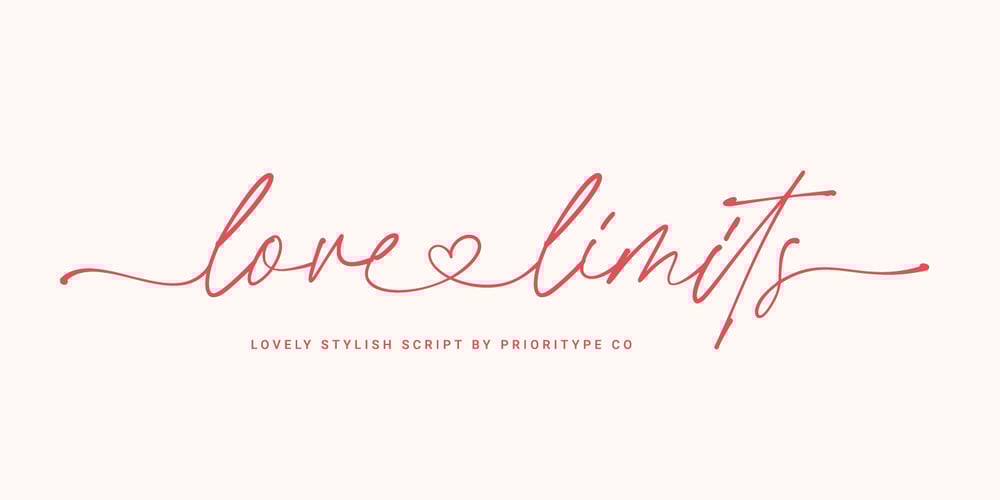
Love Limits Font Family was designed by Prio Nurokhim Aji and published by Prioritype. Love Limits contains 1 styles and family package options. Stylish script fonts are here again to accompany your design projects. Equipped with unique alternative characters and ligatures that make it more natural. Suitable for branding, logotype, wedding invitations and others. Features: Uppercase, Lowercase, Numeral, Punctuation, Multilingual, Ligatures & Alternates. Multilingual contained: Afrikaans, Albanian, Asu, Basque, Bemba, Bena, Breton, Catalan, Chiga, Cornish, Danish, Dutch, English, Estonian, Filipino, Finnish, French, Friulian, Galician, German, Gusii, Indonesian, Irish, Italian, Kabuverdianu, Kalenjin, Kinyarwanda, Luo, Luxembourgish, Luyia, Machame, Makhuwa-Meetto, Makonde, Malagasy, Manx, Morisyen, North Ndebele, Norwegian Bokmål, Norwegian Nynorsk, Nyankole, Oromo, Portuguese, Quechua, Romansh, Rombo, Rundi, Rwa, Samburu, Sango, Sangu, Scottish Gaelic, Sena, Shambala, Shona, Soga, Somali, Spanish, Swahili, Swedish, Swiss German, Taita, Teso, Uzbek (Latin), Volapük, Vunjo, Zulu. Thanks!